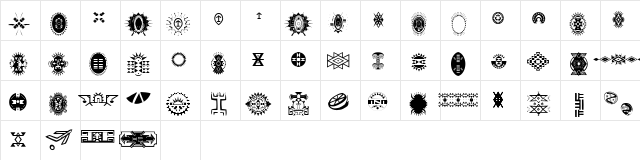
AfroDisiac Medium Free Font
AfroDisiac Medium
Design Context for AfroDisiac
AfroDisiac is a composed and adaptable typeface that performs quietly and consistently across a wide range of design contexts.